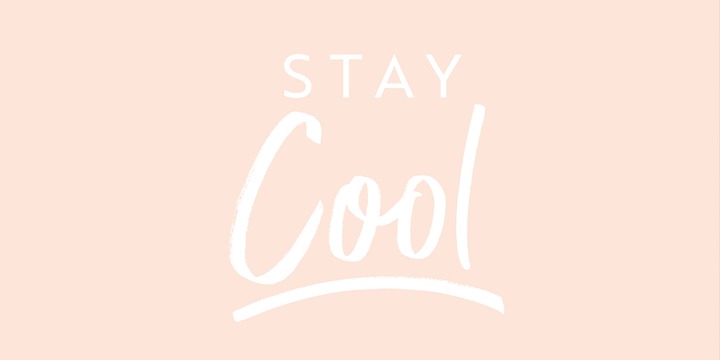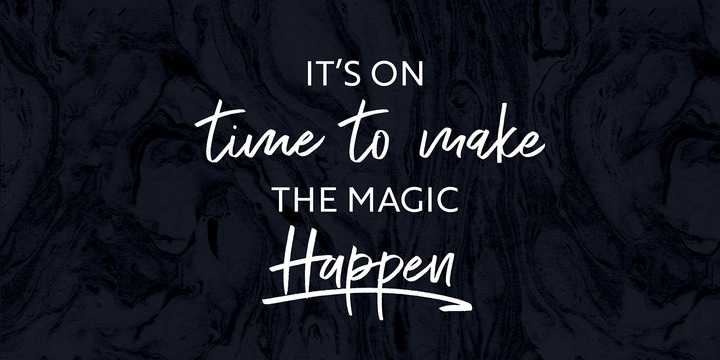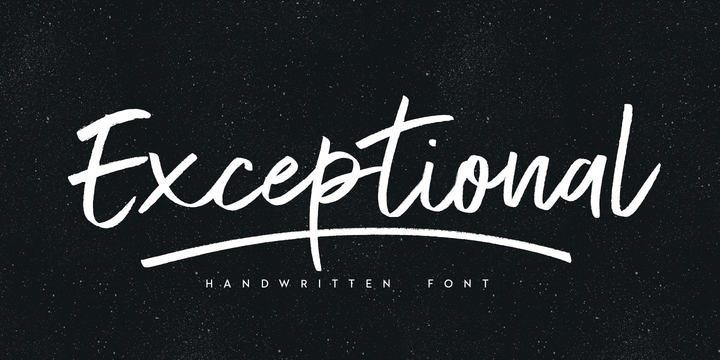
Exceptional Is a super trendy Handwritten font, Elegant & modern with gentle brush texture , Exceptional comes with a complete set of lowercase and uppercase alternates(Uppercase letters can be used alone), It gives you the option to customize your text and to make it much more unique (Its very fun).
And more great extra is the bonus Swash, this set come with 26 swashes, which allows you to add elegant & trendy finishing touches to your work.
Its the perfect choice for personal branding projects, product packaging, social media, fashion, advertising and more!.